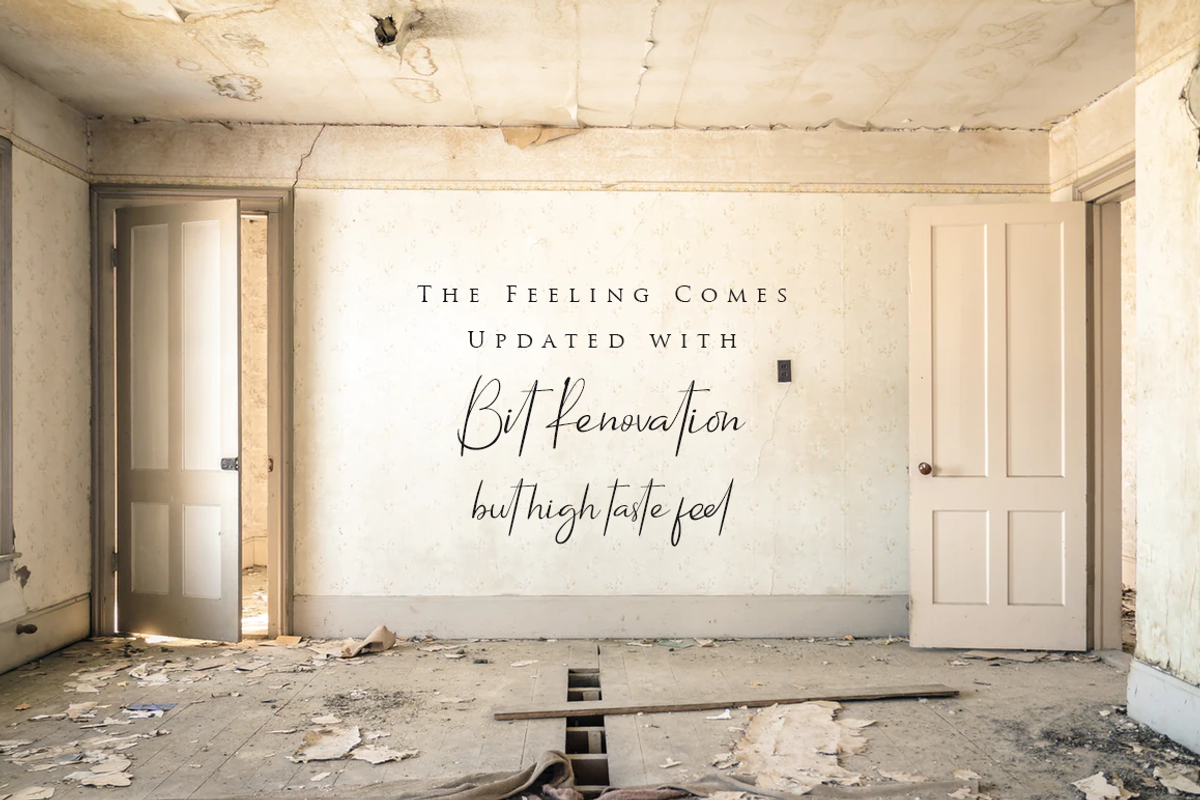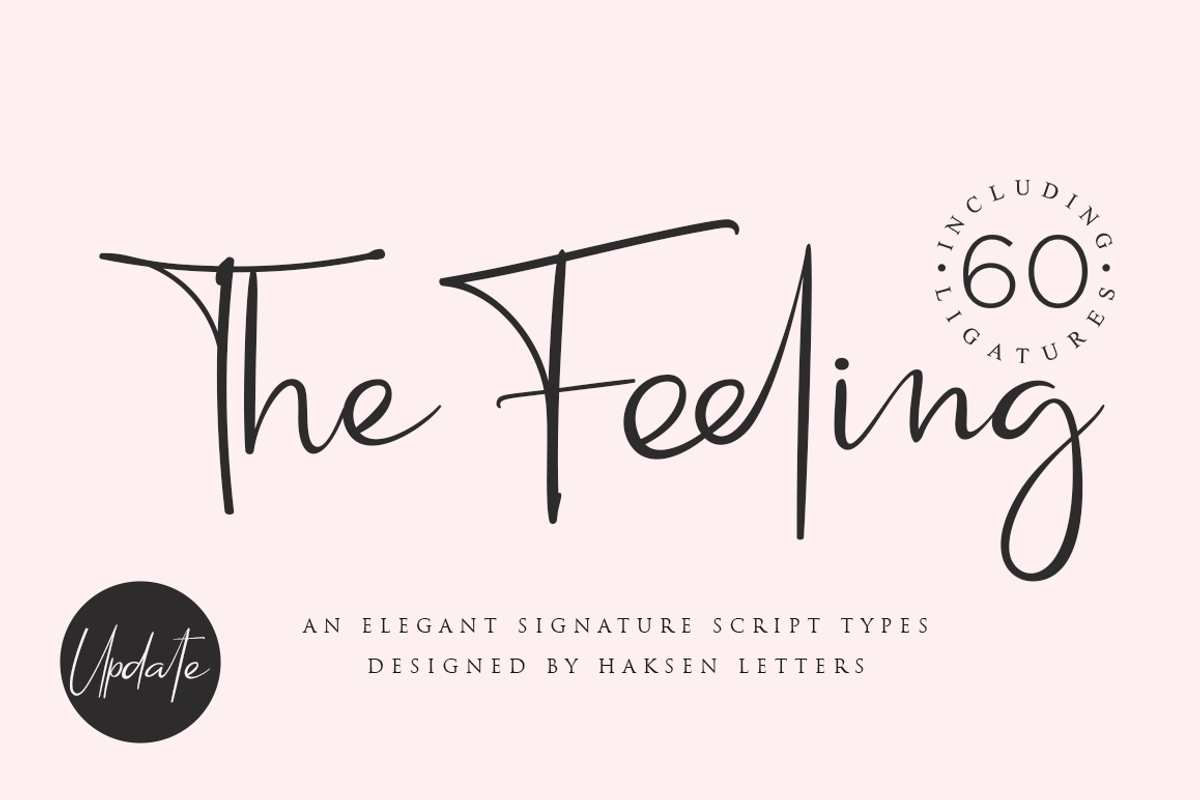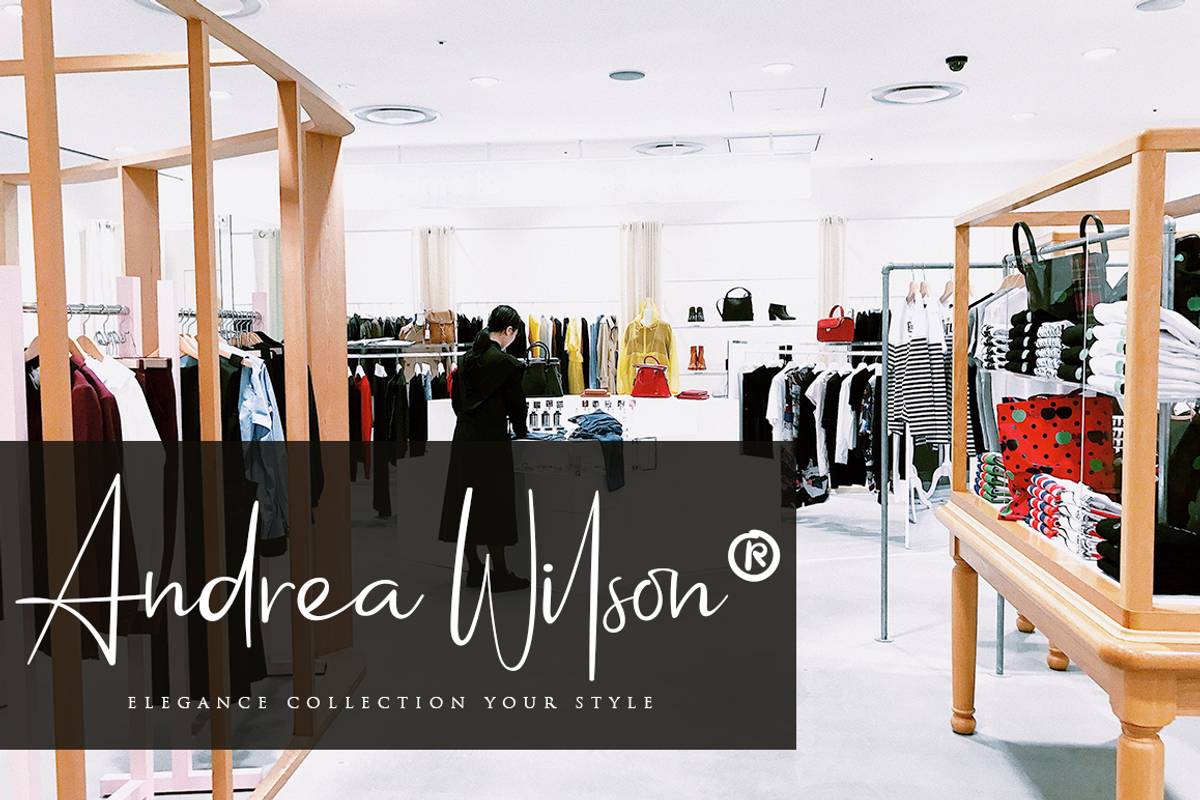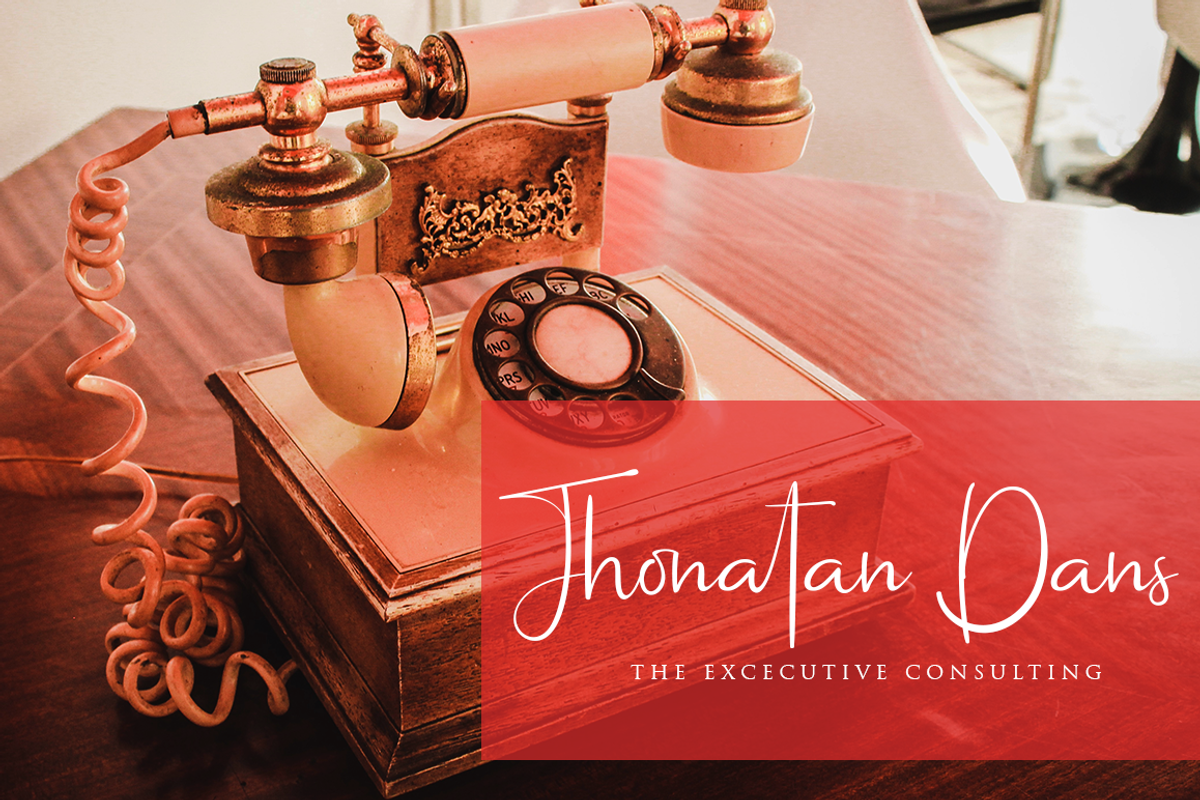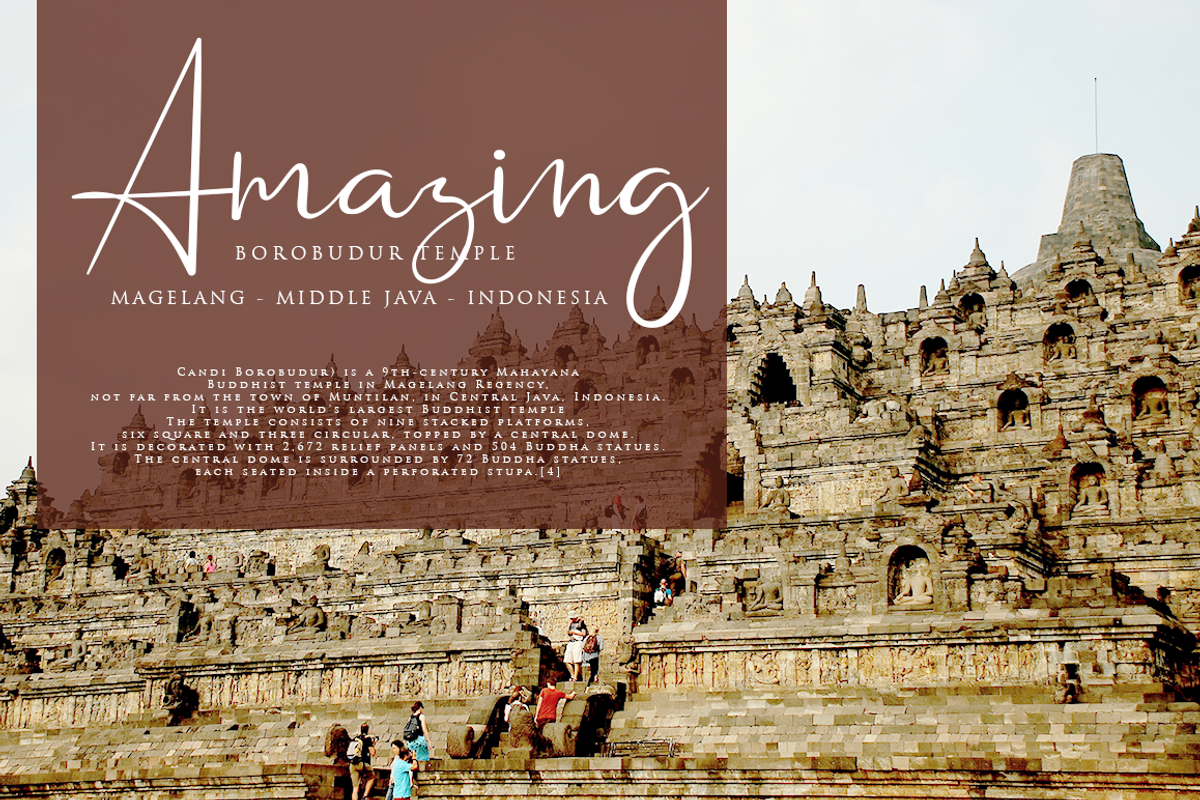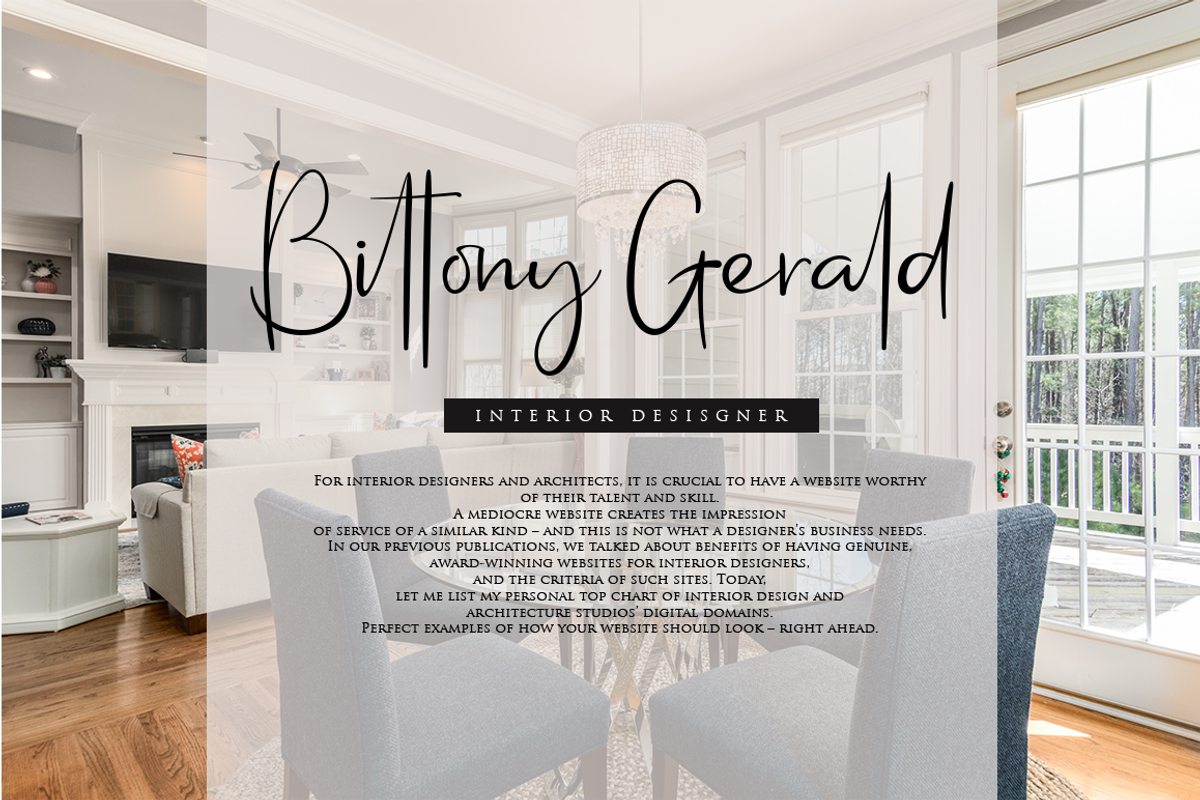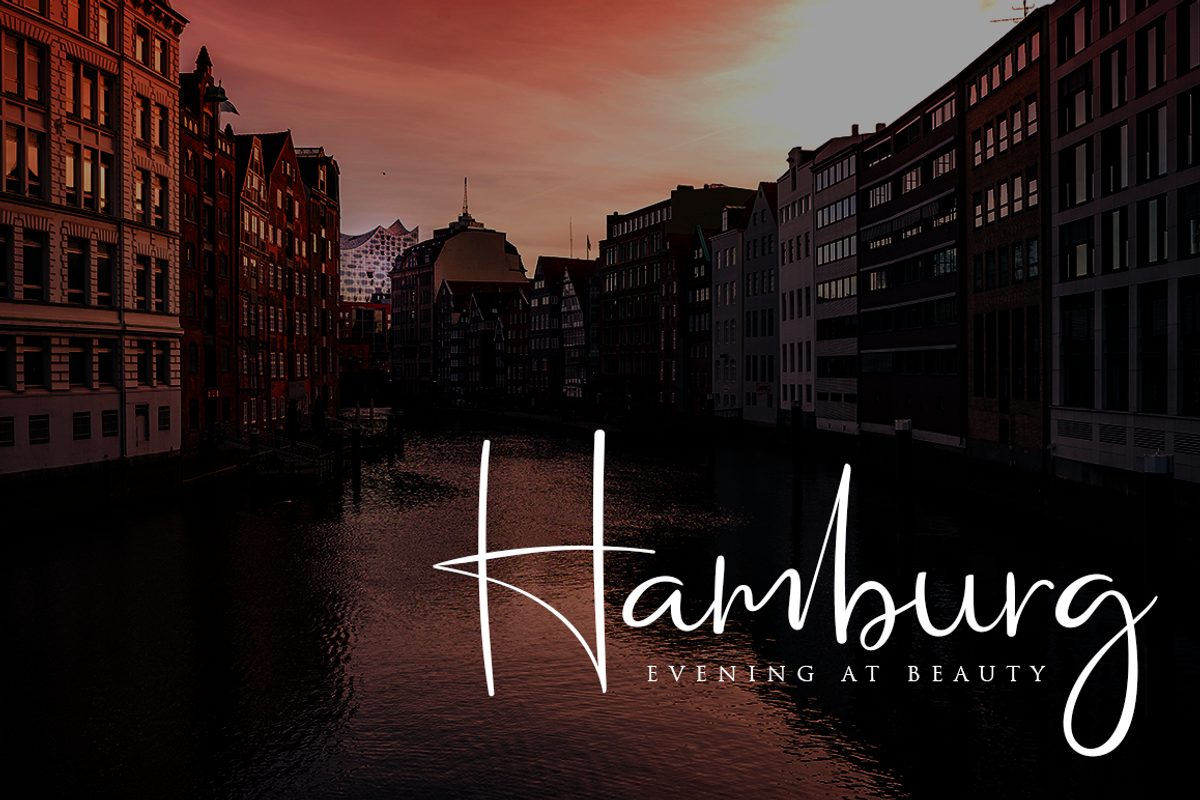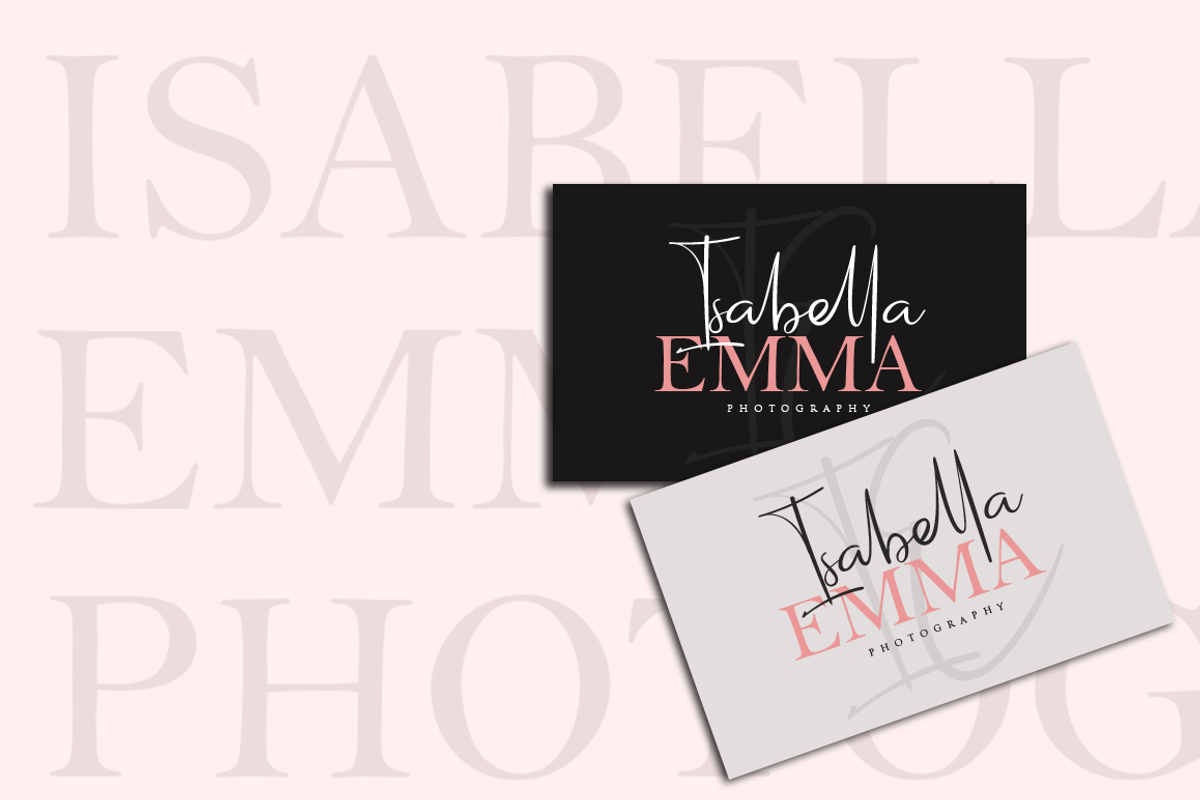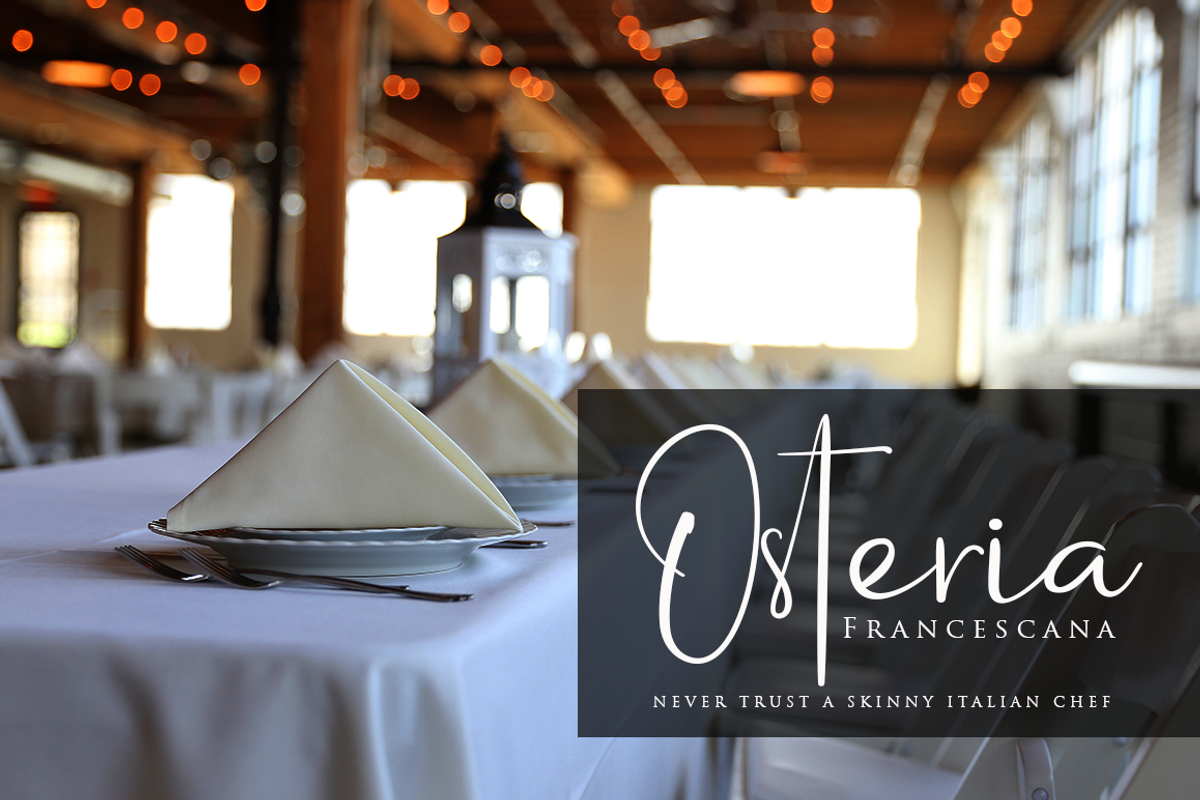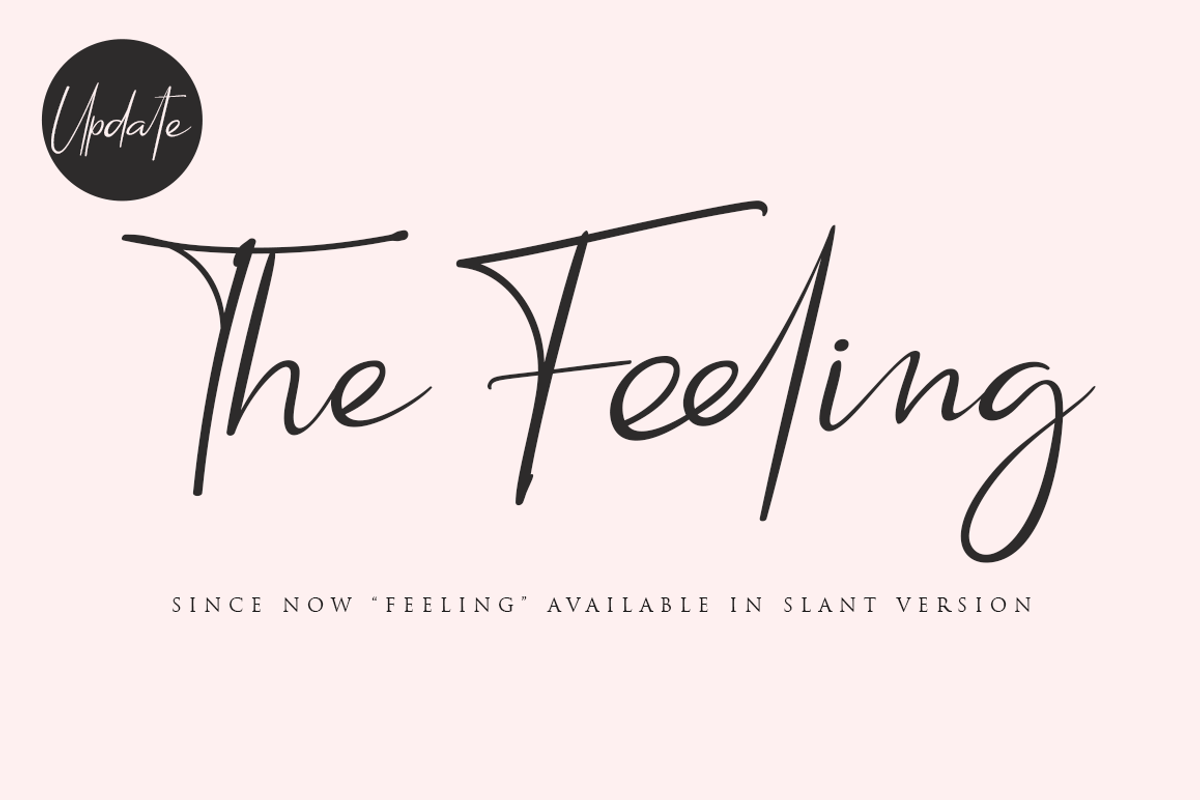
Feeling // an Elegant Script
For the long time I tried all new something related with handwritten. Something that can't be calculated, can't be estimated, can't be make sure the finished.
Feeling is an elegant script that designed many character of each font and ligature that will show elegant taste when You use this font.
Feeling can be use in many function for your requirement brands, for logo, blog, website, and all everything that related with letters.
With more than 50 glyps of ligatures in this font, I’m sure You will more love with this font. How Feeling will show You like handwritten and looks natural but elegant in taste.
Feeling also complete with language support for your requirement.